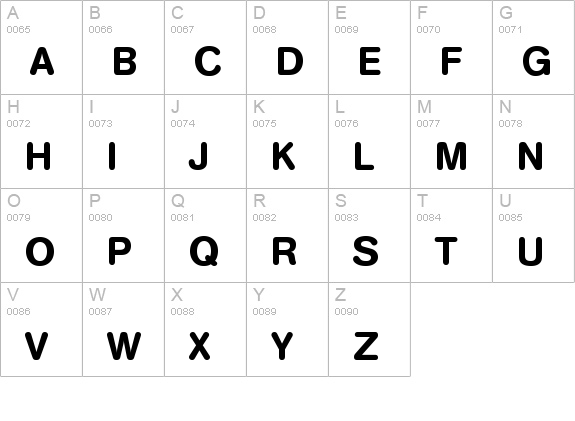
AG Book Rounded Medium is a comfortable, highly readable variant in the AG typeface family \xE2\x80\x94 well suited to long-form body text, articles, and editorial content.
AG Book Rounded Medium font is a versatile and modern typeface that exudes a friendly and approachable aesthetic. With its rounded edges and medium weight, this font is perfect for a wide range of design projects, from branding to editorial layouts. Its clean and legible design makes it ideal for both print and digital applications. What sets AG Book Rounded Medium font apart is that it is available for free download at FontsMarket.com. This means that designers and creatives can easily access this high-quality font without any cost, making it a valuable addition to any font library. Whether you're working on a personal project or a client's design, AG Book Rounded Medium font is a reliable choice that will enhance the visual appeal of your work. Elevate your designs with this contemporary and stylish font today!